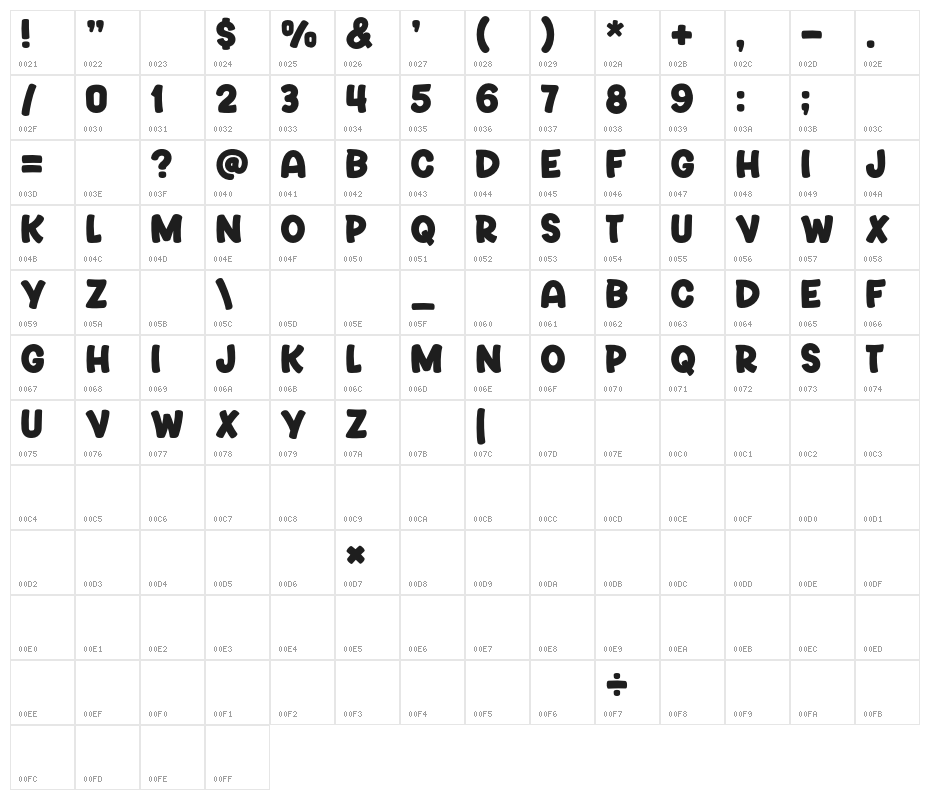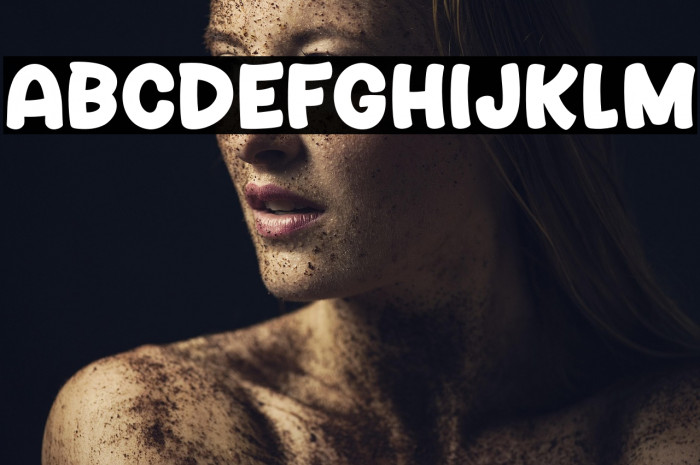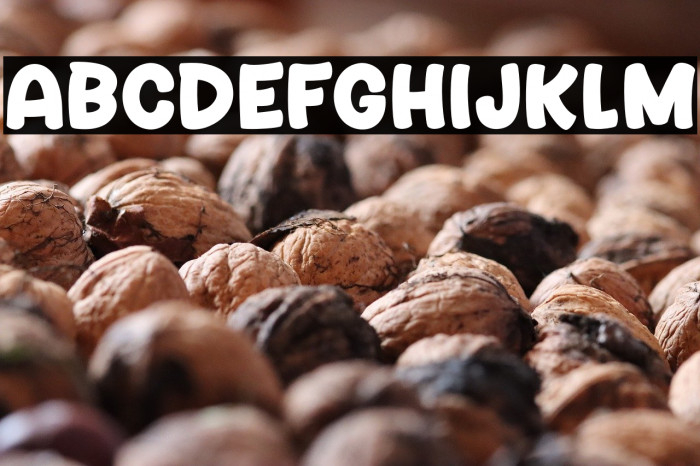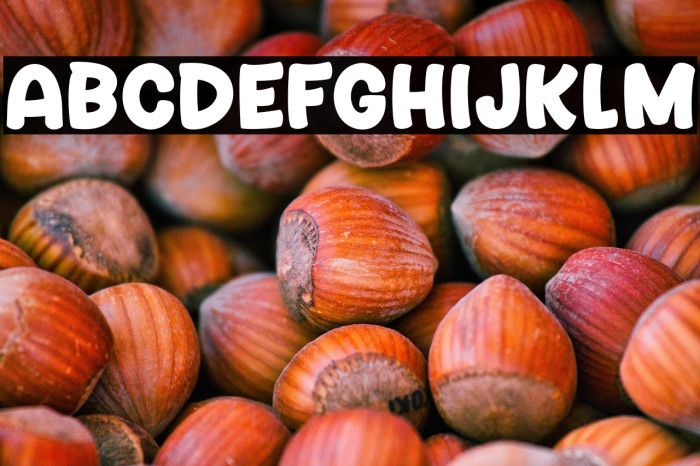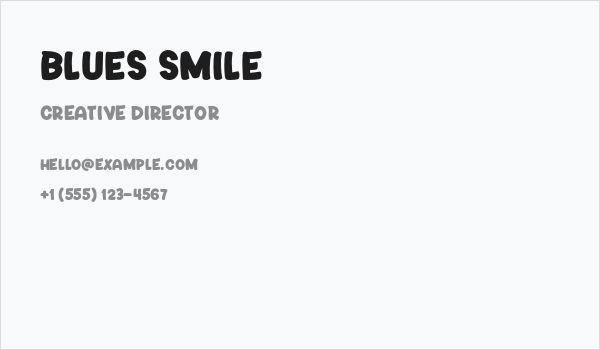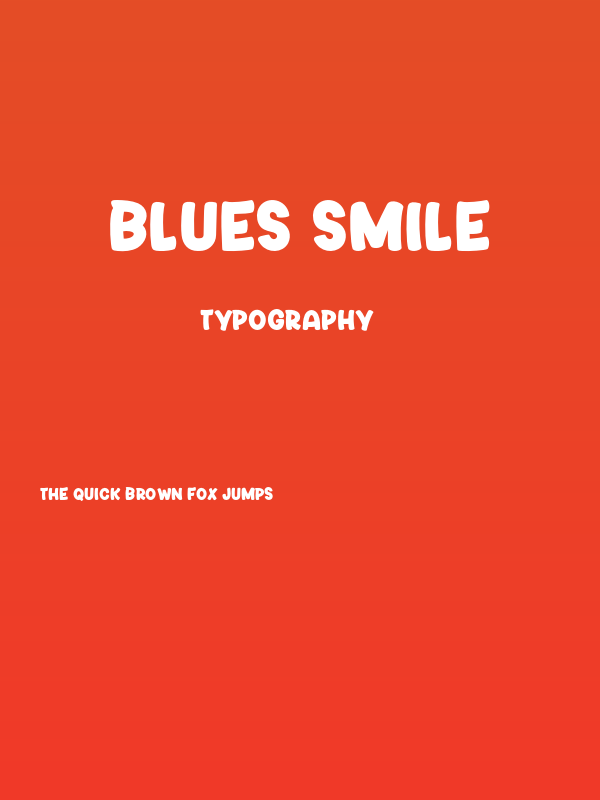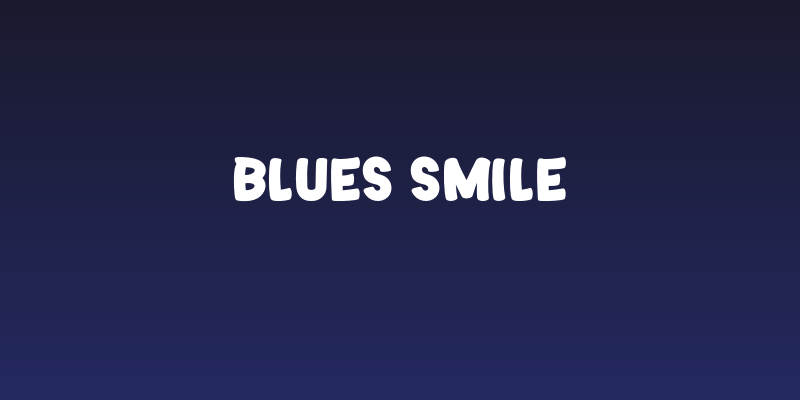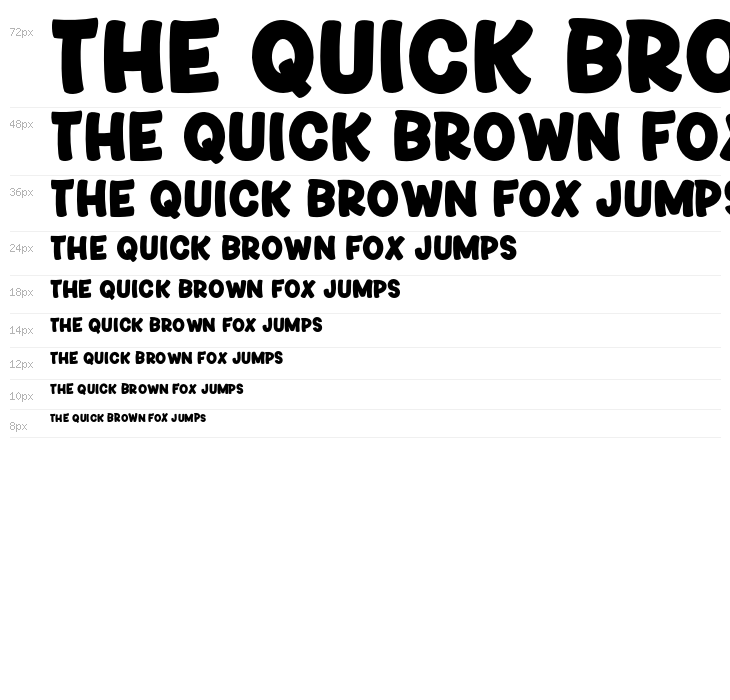
Blues Smile Font
Blues Smile Description
This font features a playful and bold style with rounded edges and a slightly irregular form, giving it a hand-drawn appearance. The characters are thick and substantial, conveying a sense of fun and approachability. The uppercase and lowercase letters maintain a consistent weight, while the numbers and special characters complement the overall design with their bold and rounded forms. This font is ideal for projects that require a lively and informal touch, making it suitable for children's books, playful branding, or casual event posters.
| Overall Style | Playful, Informal |
| Proposed Projects | Ideal for children's books, playful branding, casual event posters, and any project needing a fun, informal touch. |